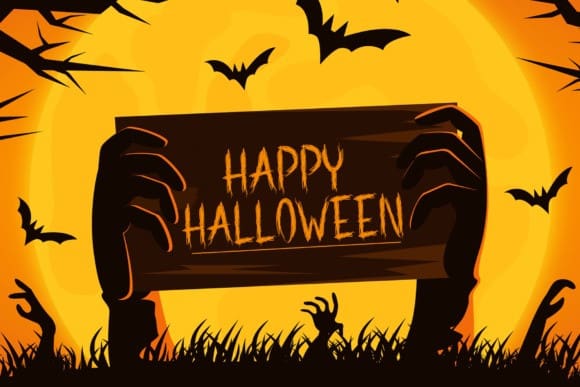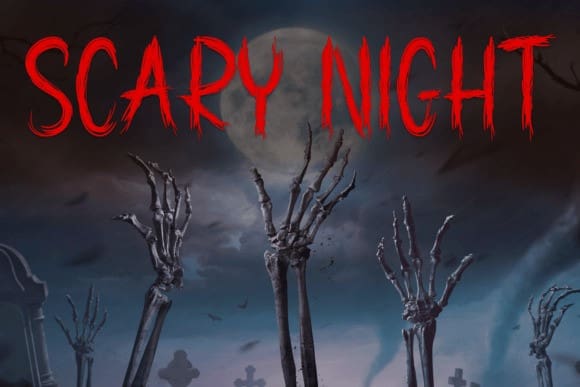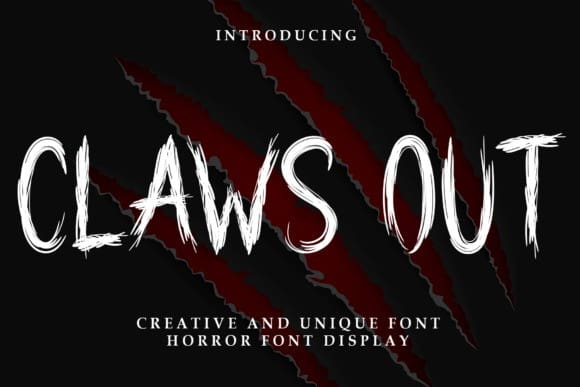
Claws Out Font
Claws Out Font is a bold and themed display font. Cute and fun, this font is ideal for writing posters, movie titles, cards, banners, or any other design that might need a fun touch!